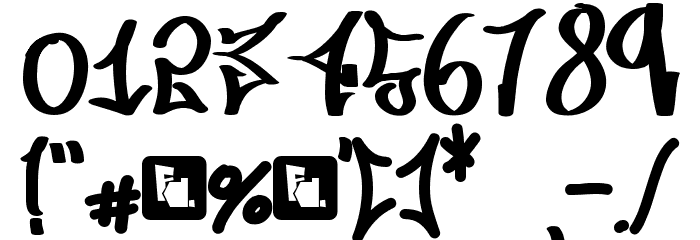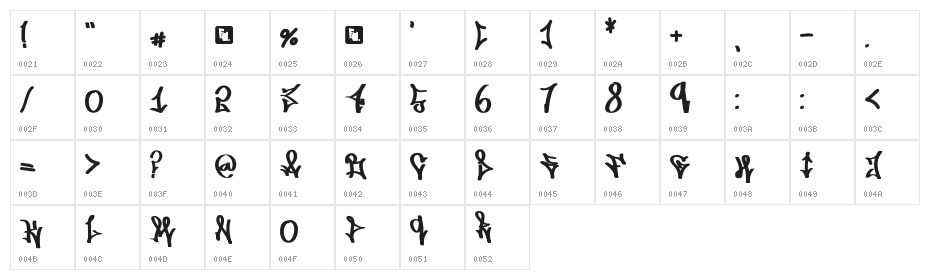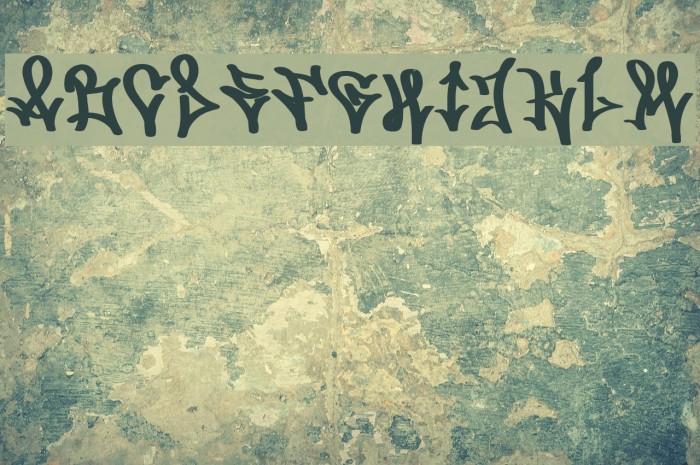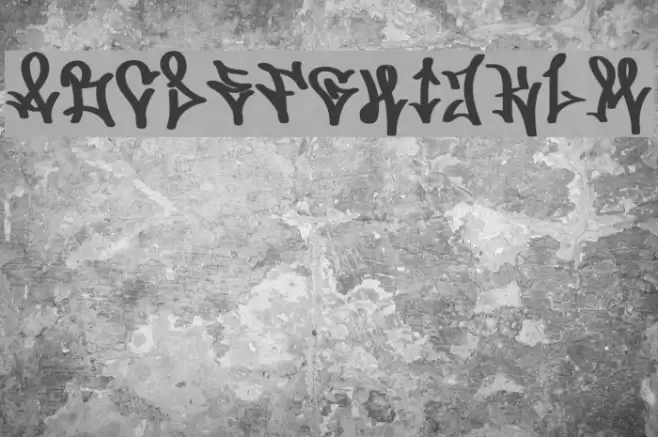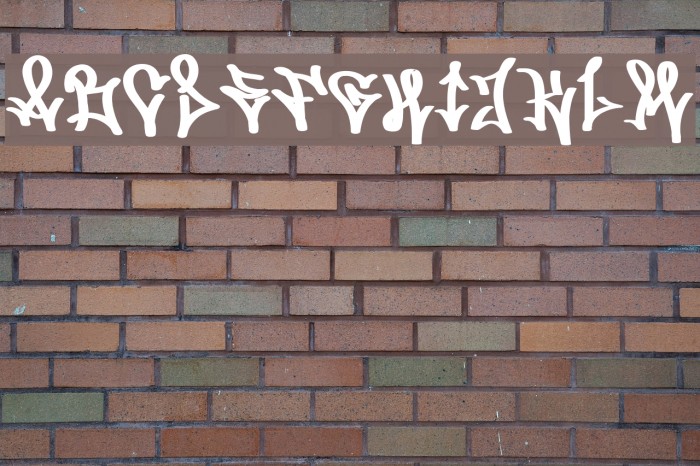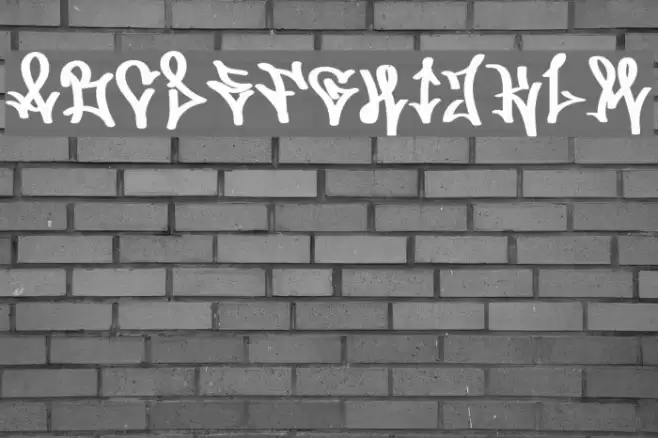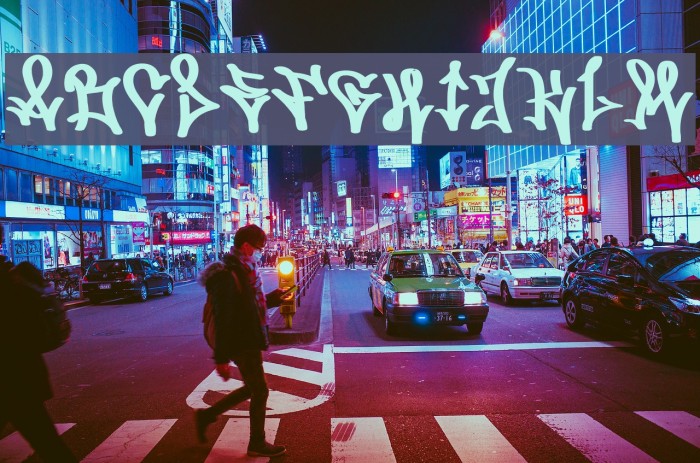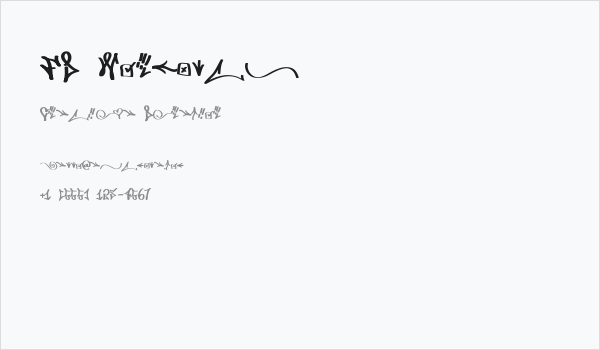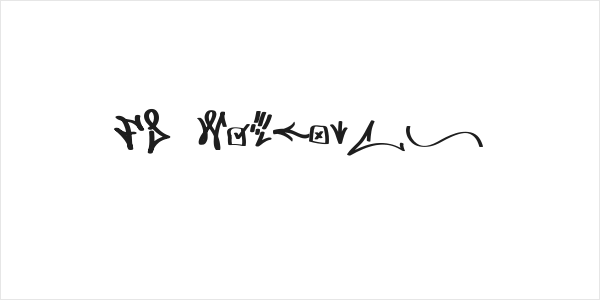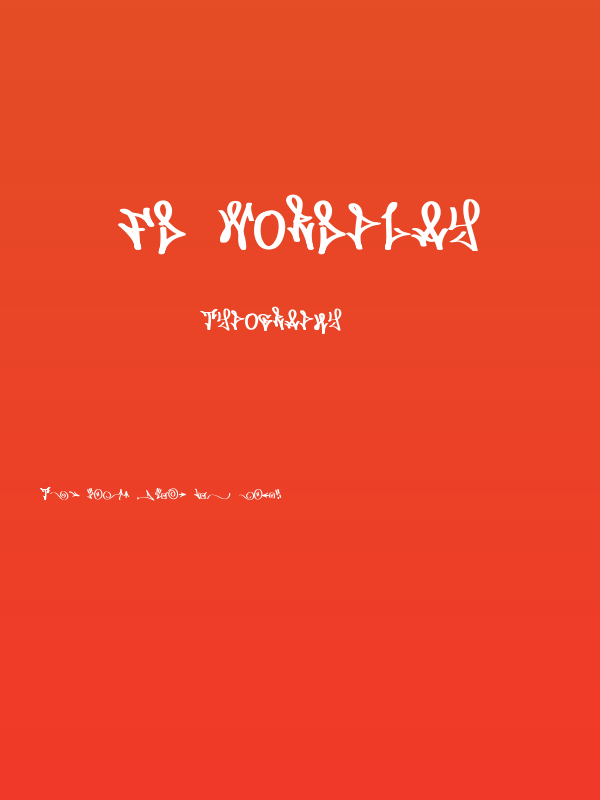
FD Wordplay Font
FD Wordplay Description
This font features an intricate and artistic design, characterized by its highly decorative and abstract letterforms. Each character is uniquely crafted with swirling lines and bold strokes, creating a sense of movement and fluidity. The uppercase letters are particularly elaborate, with exaggerated curves and angles that give them a striking appearance. The lowercase letters maintain a similar style, though slightly more subdued, allowing for better readability. Numbers and special characters are equally ornate, integrating seamlessly with the overall aesthetic. This font is ideal for projects that require a bold and artistic touch, making it perfect for creative designs, posters, and unique branding materials.
| Use Case | Headlines, Logos, Artistic Designs |
| Proposed Projects | Ideal for creative projects, artistic posters, unique branding, and decorative designs. |